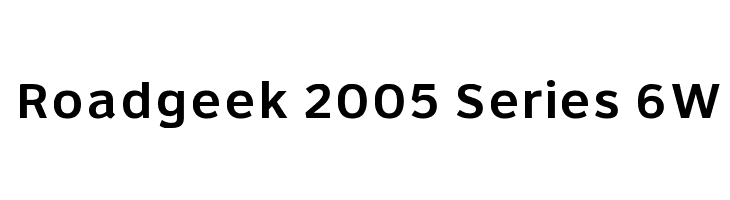
A modern, sans-serif font with excellent legibility and a slightly condensed style.
A bold, modern sans-serif font with excellent readability and uniform design.
A modern sans-serif font with geometric shapes and uniform stroke width.
A modern, clean sans-serif font with uniform strokes and excellent readability.
A modern sans-serif font with bold, geometric shapes and excellent readability.
A modern, clean sans-serif font with high readability.
A bold, modern sans-serif font with excellent legibility and a slightly condensed style.
A modern, clean sans-serif font with high legibility and balanced spacing.
A clean, readable typeface with uniform structure and clarity.
A clean, sans-serif font with uniform width and high legibility.